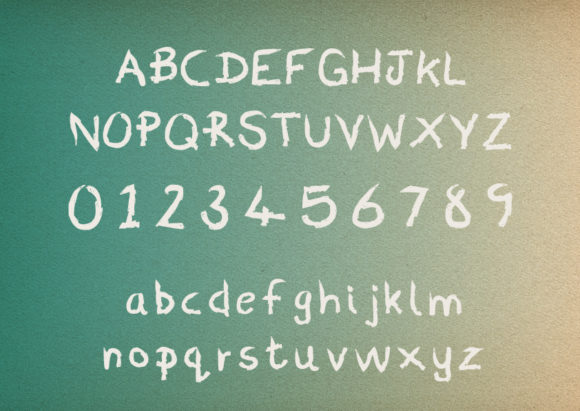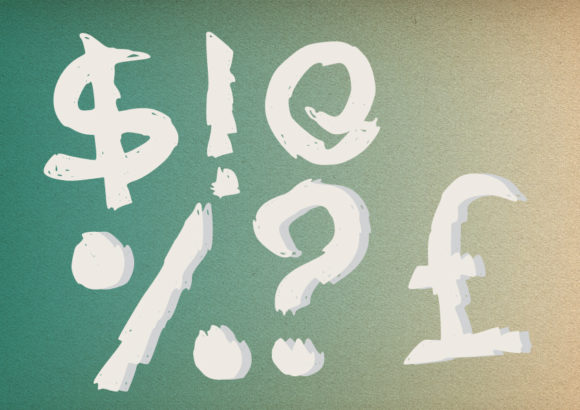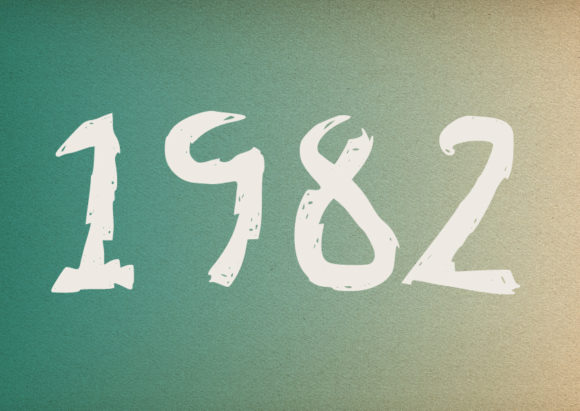
Introduction to R U Serious Font
R U Serious is a rough display font.
Its casual charm makes it appear wonderfully down-to-earth, readable and, ultimately, incredibly versatile R U Serious will look outstanding in any context, whether itโs being used on busy backgrounds or as a standalone headline.
Key Features of R U Serious Font